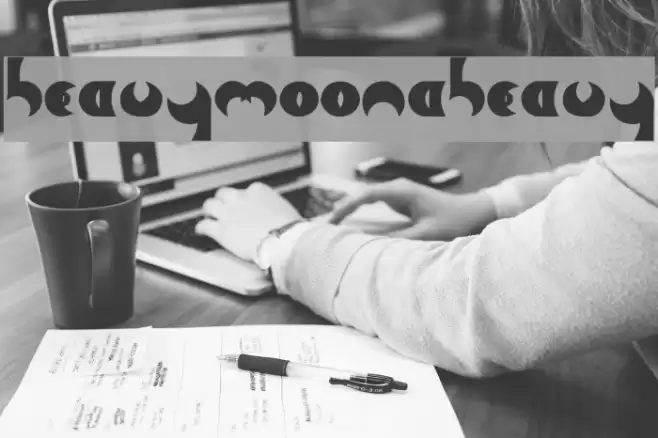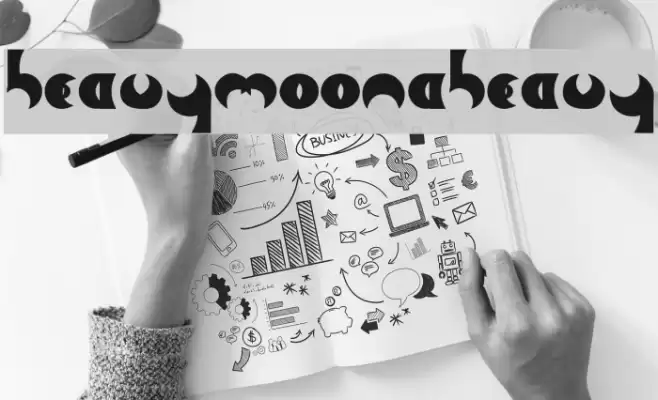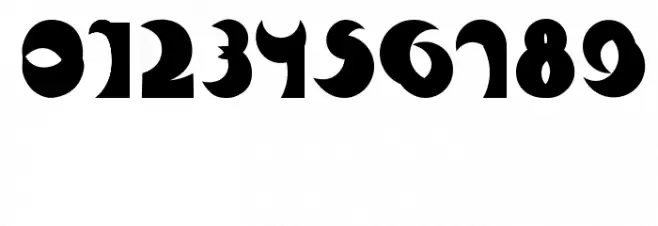
HeavyMoonA-Heavy Font
HeavyMoonA-Heavy Description
This font features a bold and dramatic style with thick, heavy strokes and a unique, artistic flair. The characters are rounded and have a playful, almost whimsical appearance, with some letters incorporating crescent-like shapes that add to its distinctiveness. The overall look is modern and eye-catching, making it suitable for creative and unconventional design projects. The numbers and special characters maintain the same boldness and artistic style, ensuring consistency across all elements.
A bold, artistic font with heavy strokes and crescent-like shapes from Decorative fonts.
- Proposed Projects: Ideal for posters, album covers, branding projects, and any design requiring a bold, artistic touch.